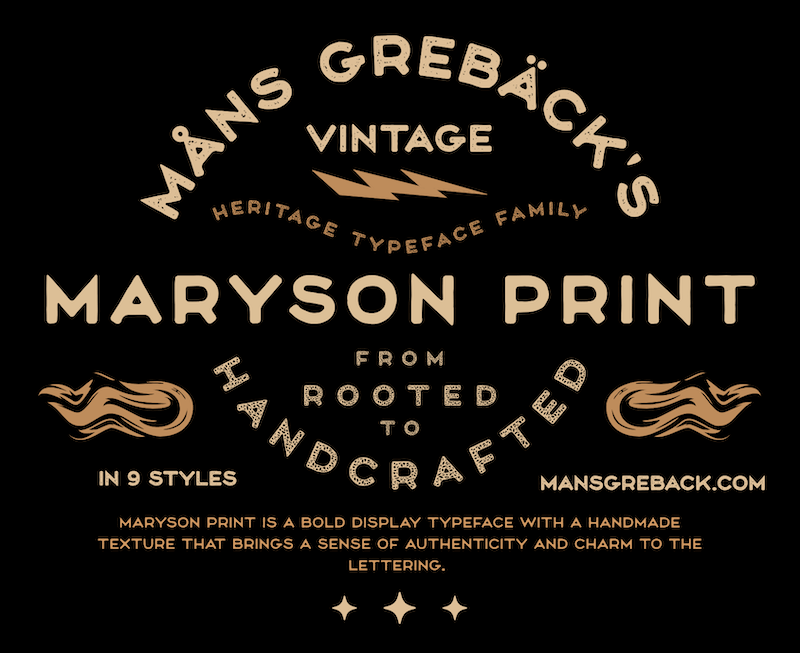
| Font name: | Maryson Print |
NOTE: This font is for PERSONAL USE ONLY! To purchase a commercial license, visit: https://www.mansgreback.com/product/maryson-print Maryson Print is a bold display typeface with a handmade texture that brings a sense of authenticity and charm to the lettering. Designed with a distressed finish, its carved-out imperfections add visual rhythm and character without compromising the clarity of each letterform. For questions, please visit https://mansgreback.com/faq |